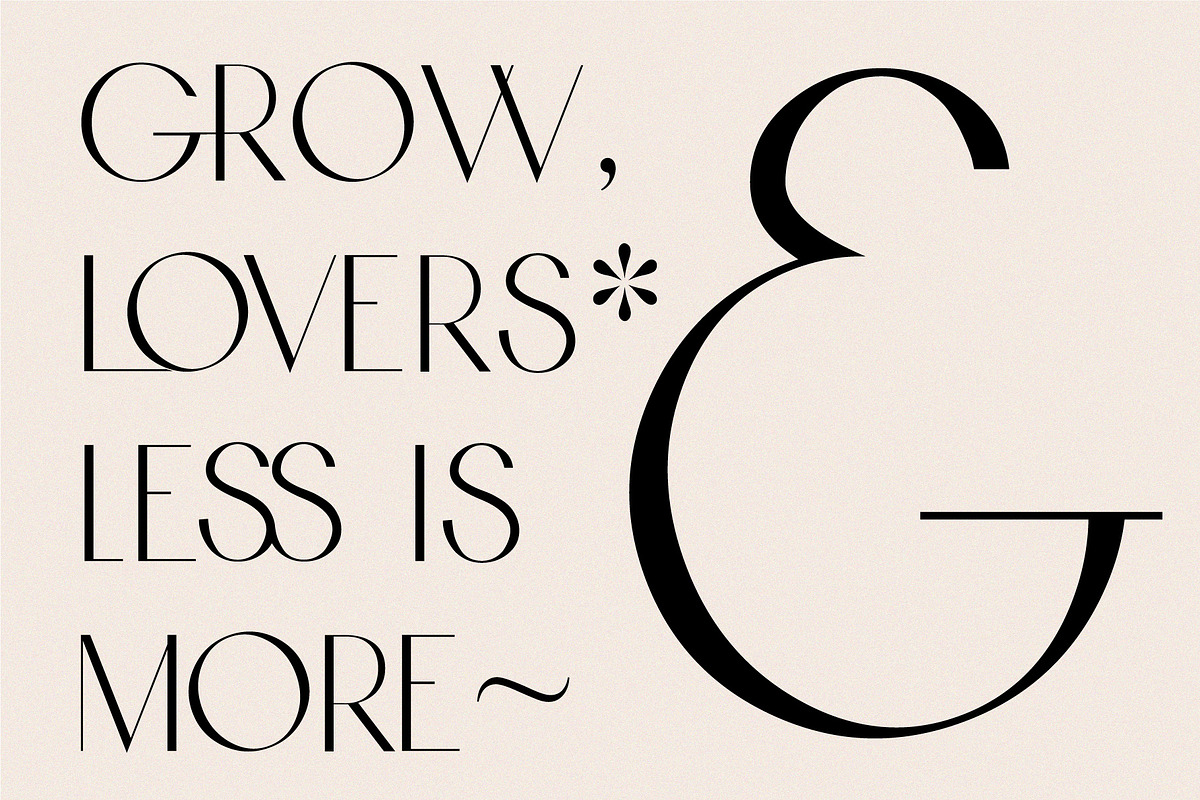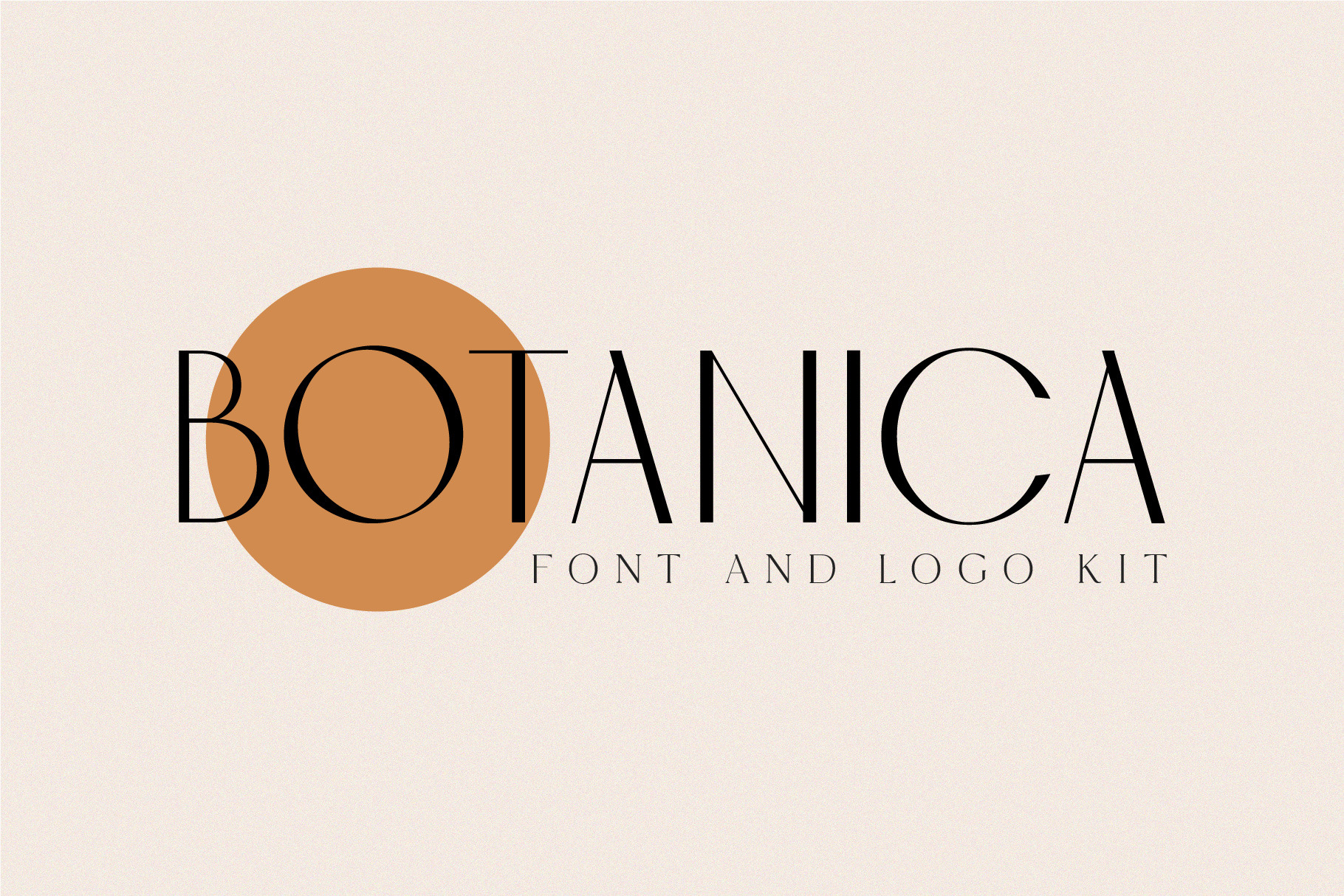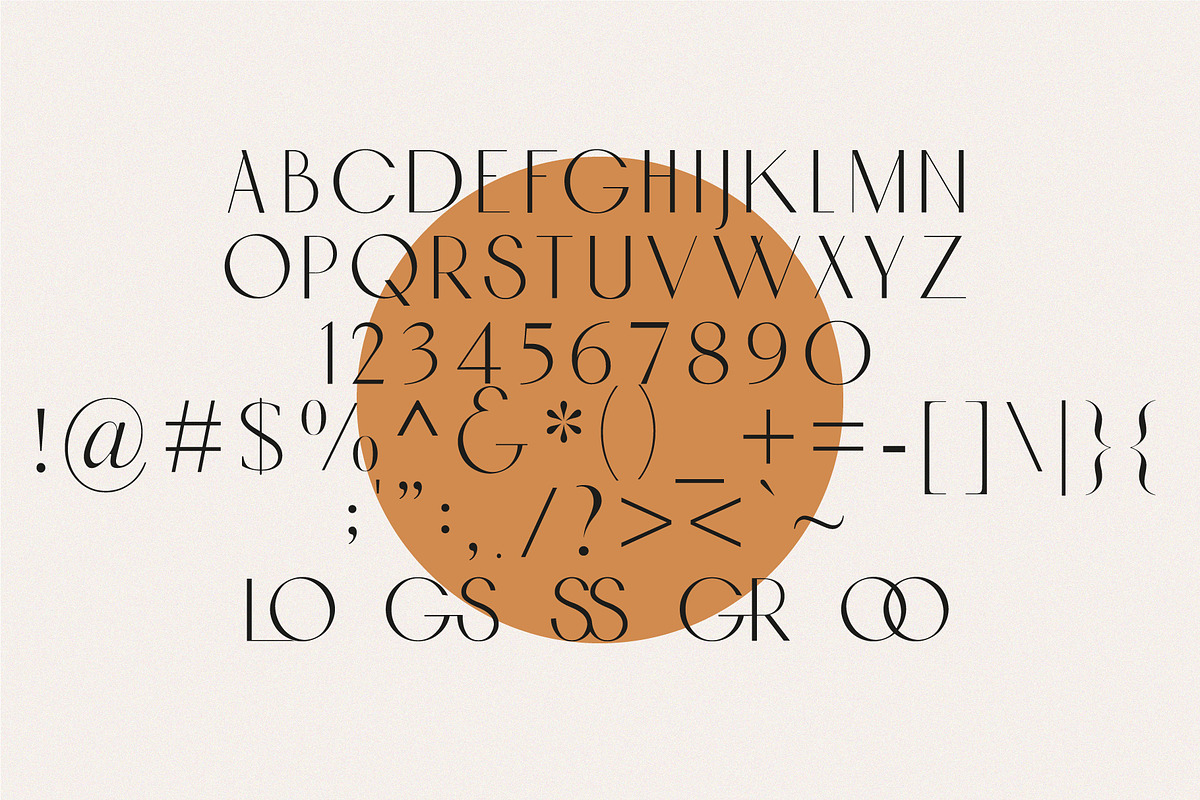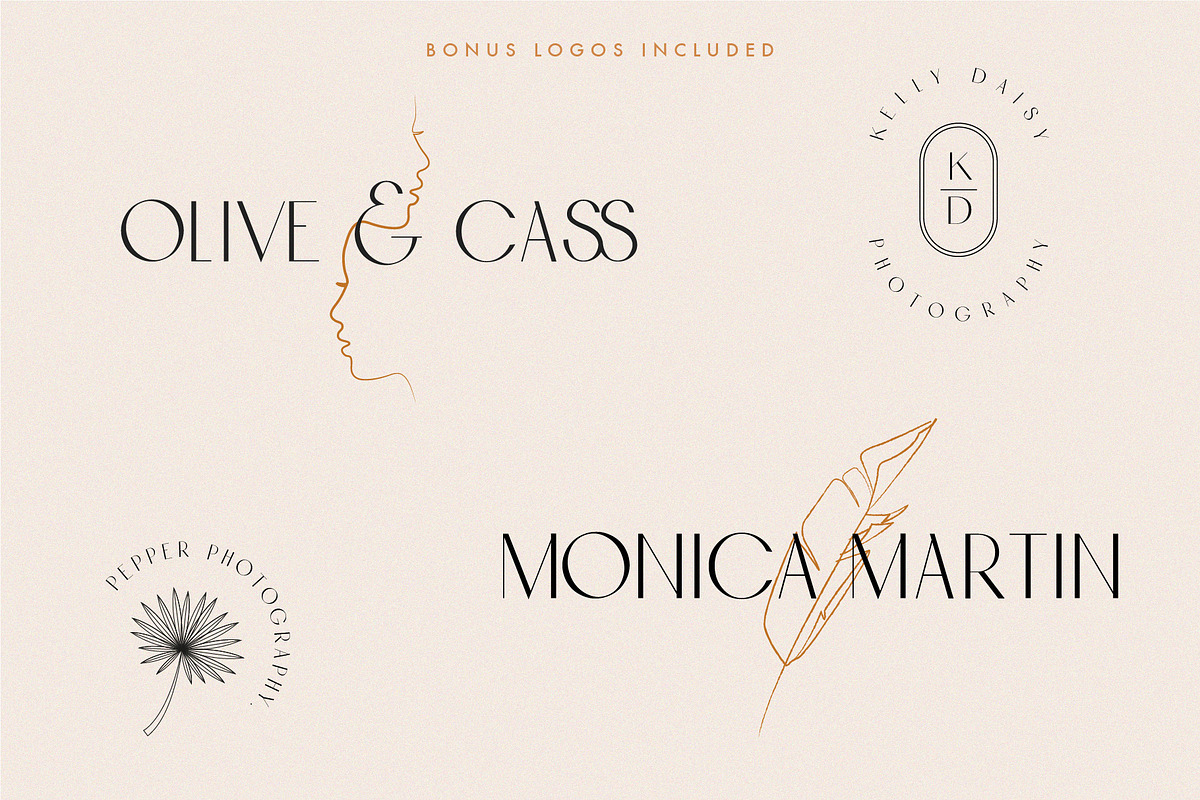
BOTANICA - FONT AND LOGO KIT
ART DECO MINIMALISM! This chic font takes the decoration out of deco but keeps those vintage curves. A perfect mix of new and old. This versatile font can be used for word-mark logos, mastheads, pull quotes & monograms. Plus 8 bonus feminine logos thrown in!
This font is ridiculous! SO PRETTY! I can't even stand how luxurious this font is, even though it is advertised as modern, I am using it with a branding client and we are both totally in love with this font in her logo! Great work on this - the font does well at large sizes, staying crisp and clean, and also isn't too thin when at smaller sizes! Great balance! Thanks for your work on this!